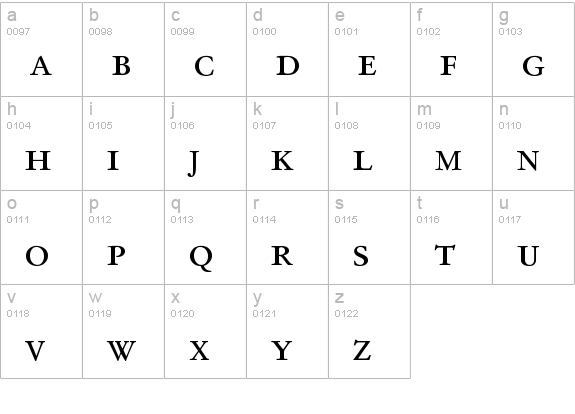
Garamond* Expert Roman Font Details
Garamond* Expert Roman font is a timeless classic that exudes elegance and sophistication. With its delicate serifs and graceful curves, this typeface is perfect for conveying a sense of tradition and refinement in your designs. The Garamond* Expert Roman font is versatile and can be used for various projects, from formal invitations to editorial layouts. What's even better is that this exquisite font is available for free download at FontsMarket.com. Now you can add a touch of class to your projects without breaking the bank. Don't miss out on the opportunity to elevate your designs with the Garamond* Expert Roman font, completely free of charge. Download it today and let your creativity shine!